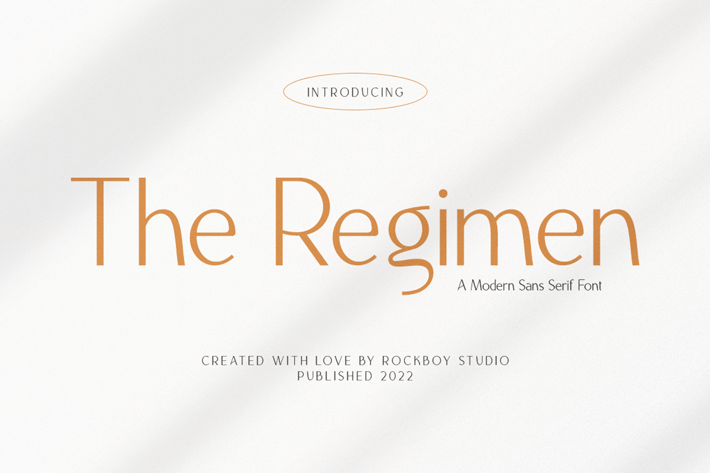
The Regimen - Business Font
The Regimen is a minimal and modern sans serif font. It can easily be matched to an incredibly large set of projects, so add it to your creative ideas and notice how it makes them stand out!